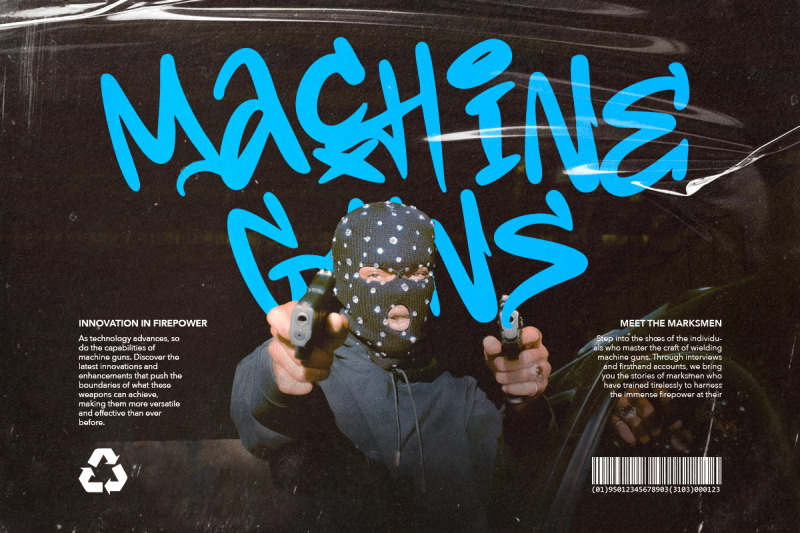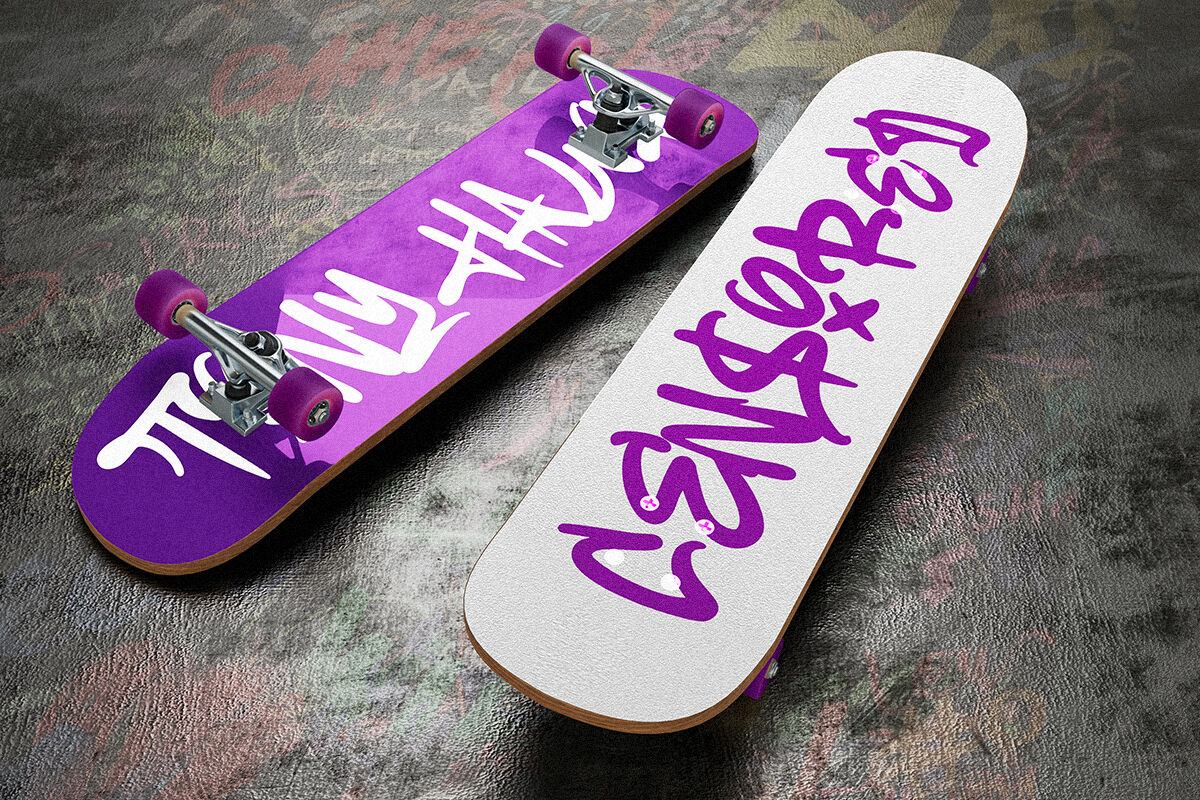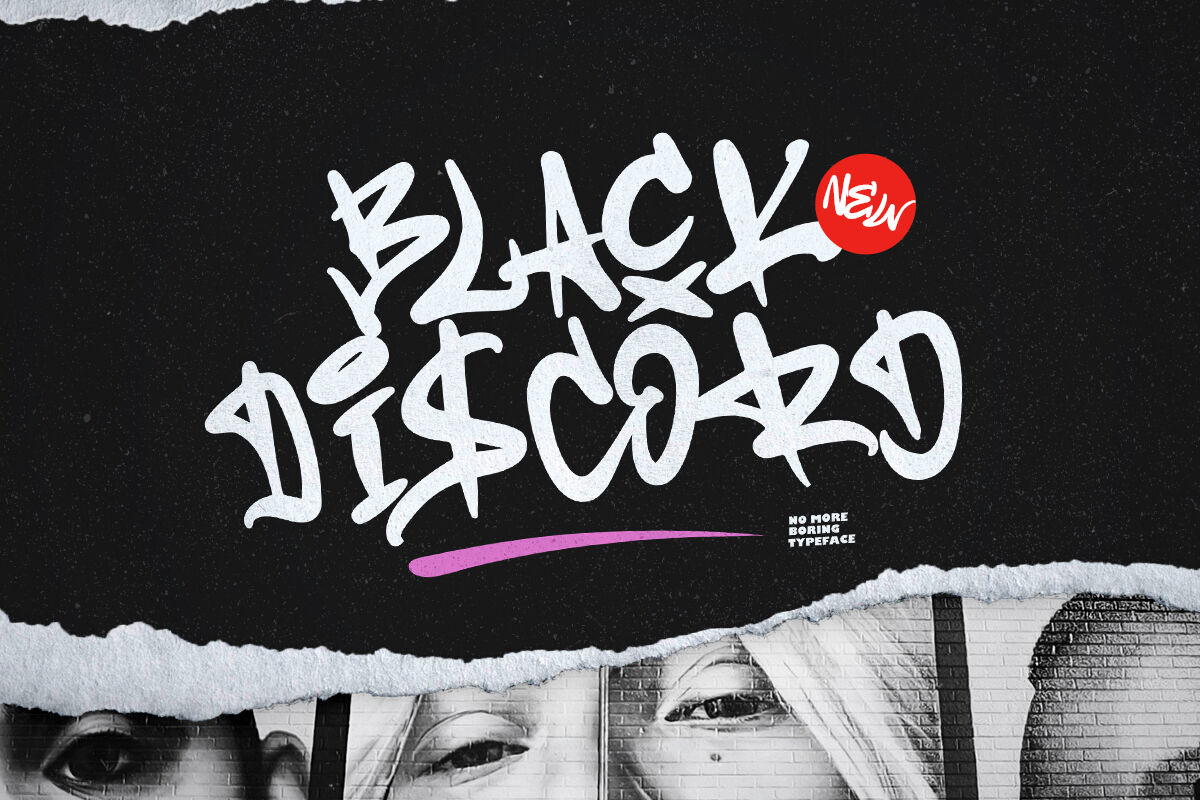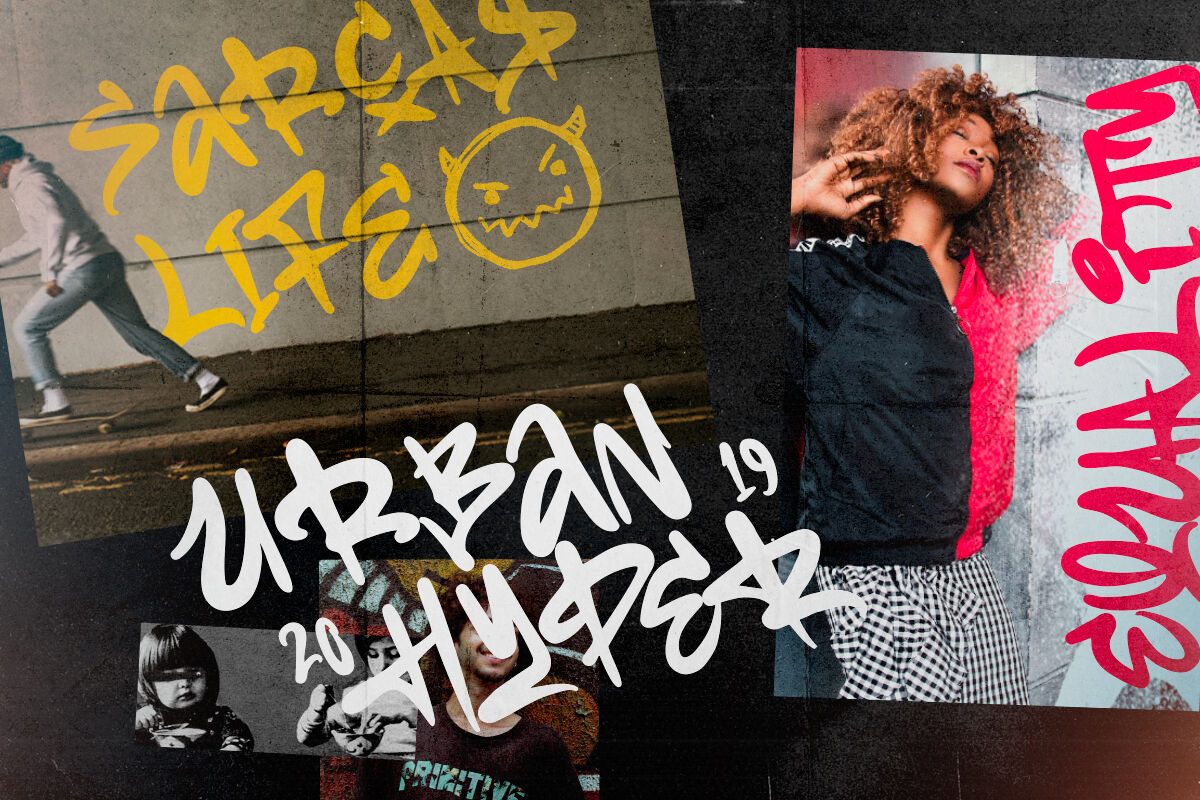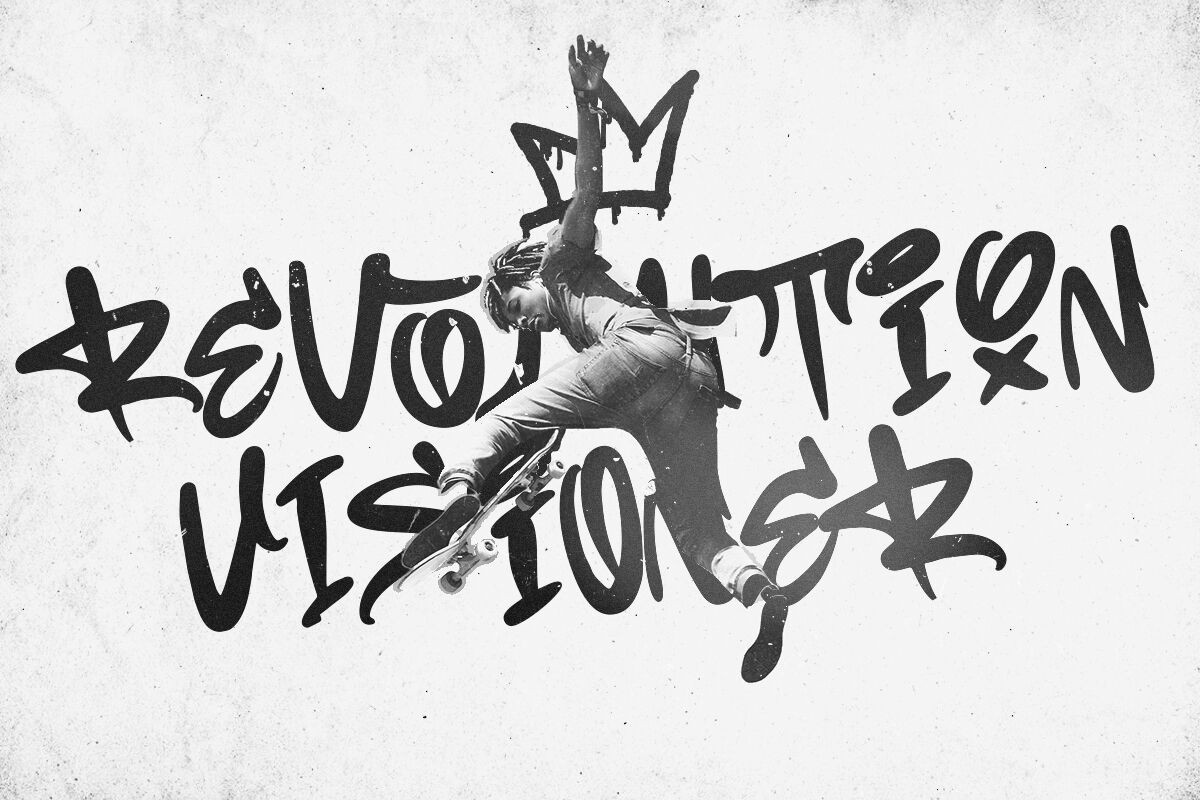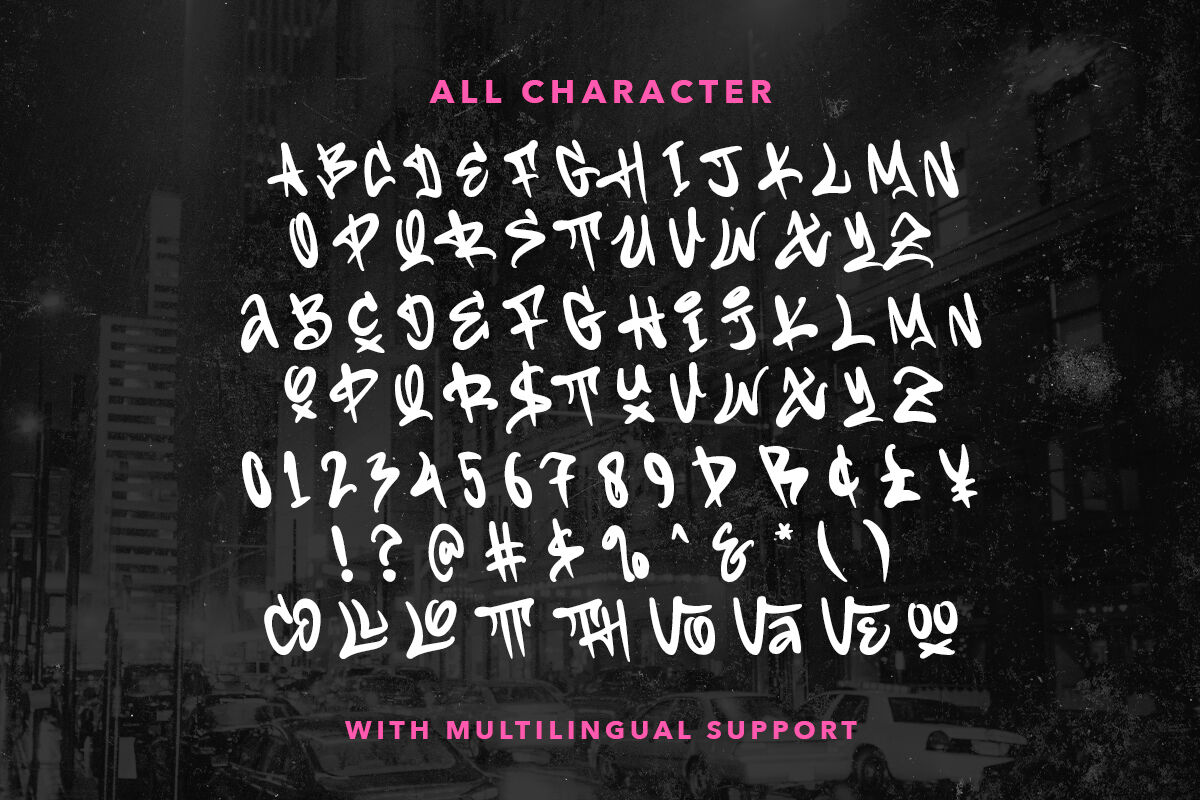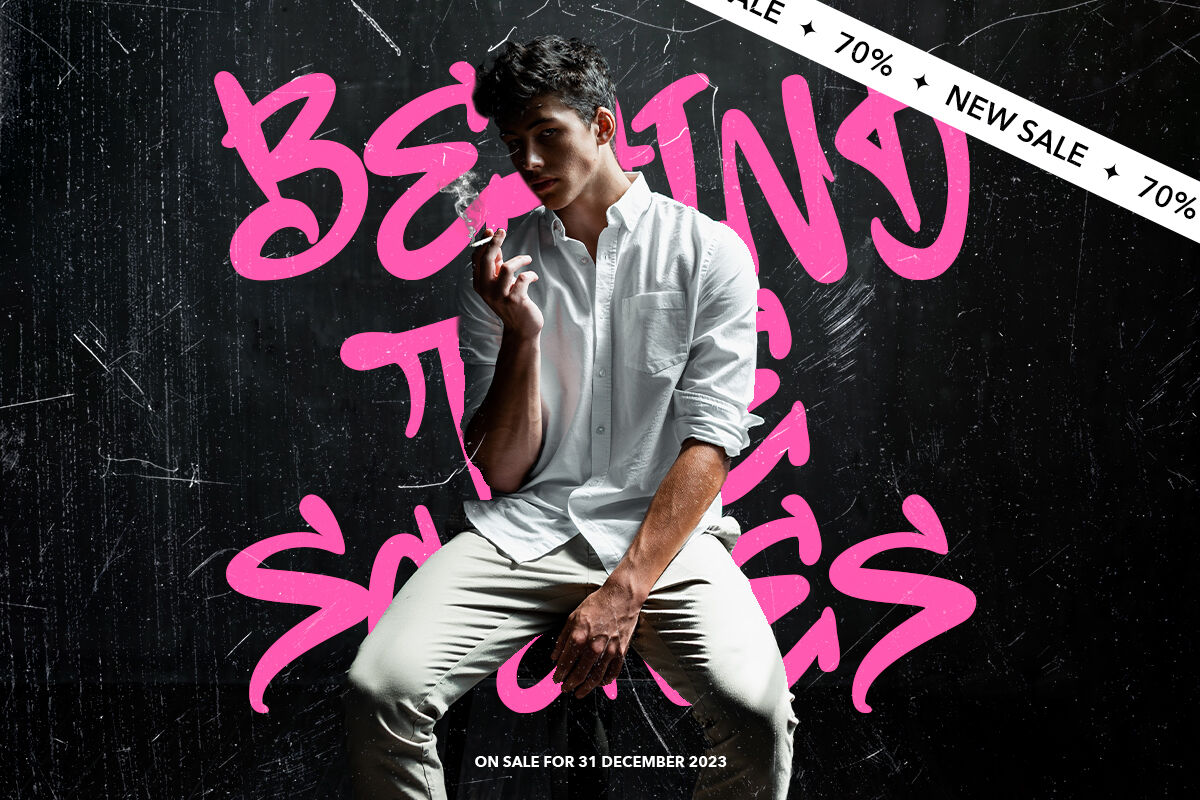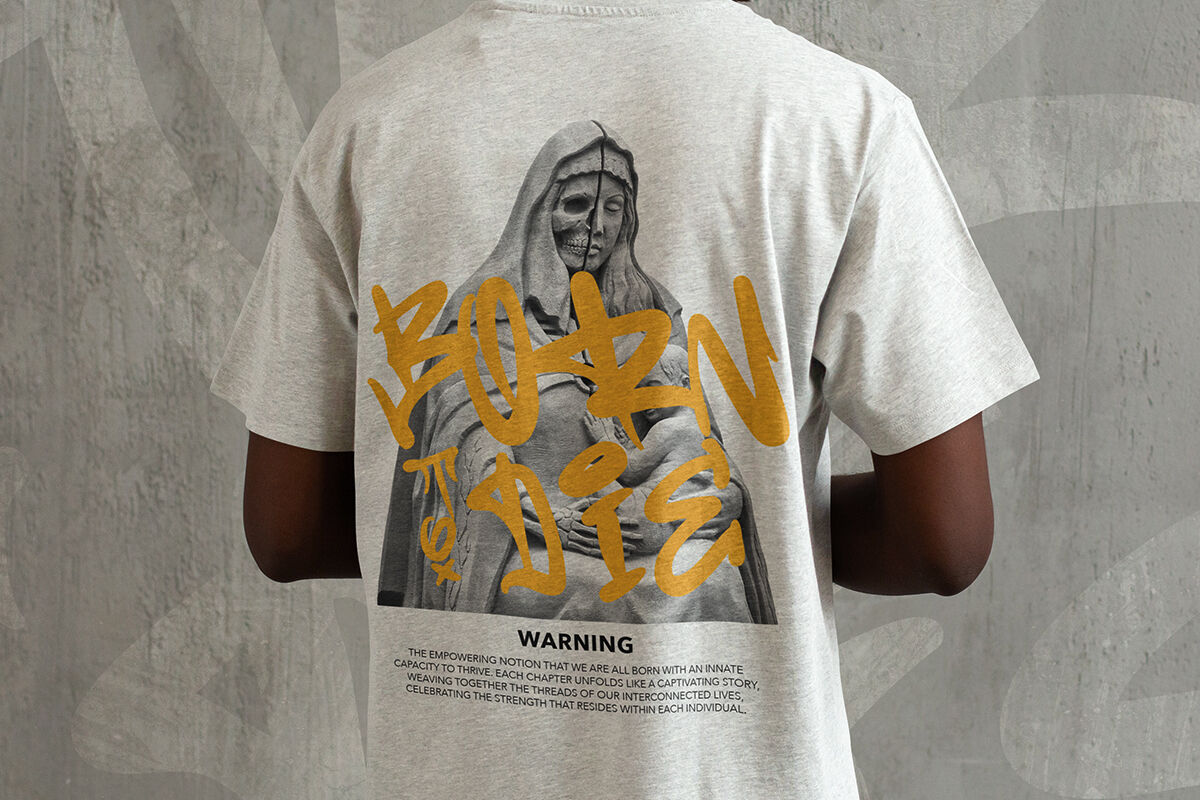
Black Discord - Graffiti Font
Black Discord is a graffiti font that capture the spirit of street art and bring a dynamic and expressive flair to typography. This font is suitable for designs that seeking to evoke an edgy, urban vibe or to make a bold statement. With ligatures, this font will make your project more handmade and stunning. This font also support multi language.